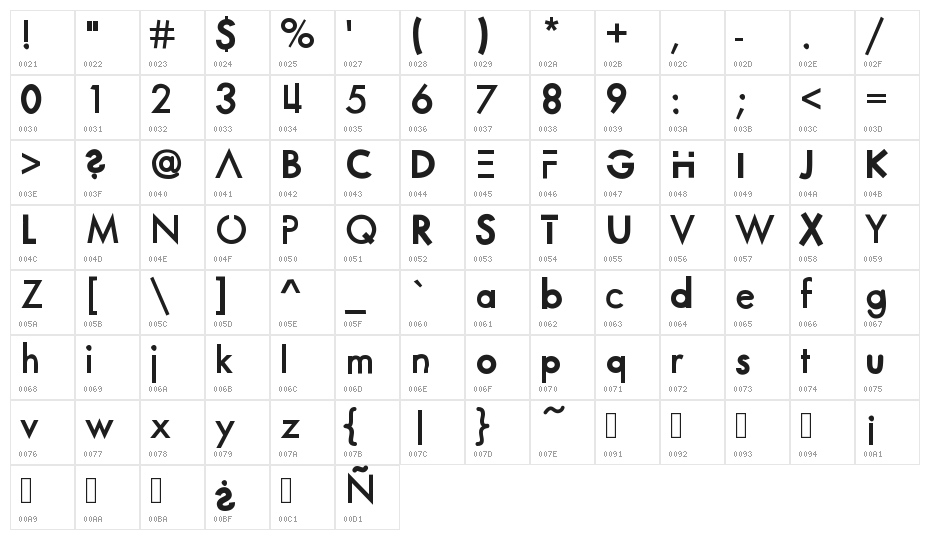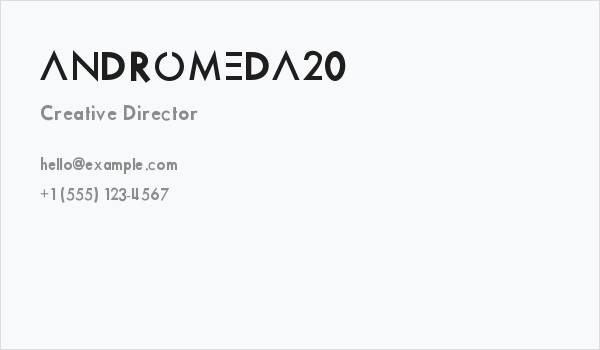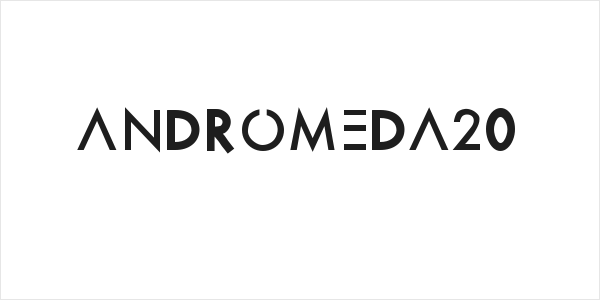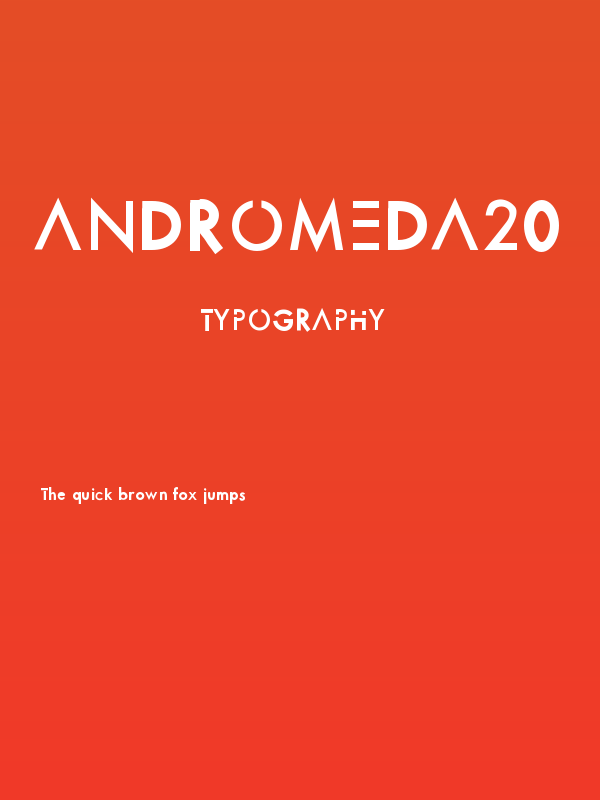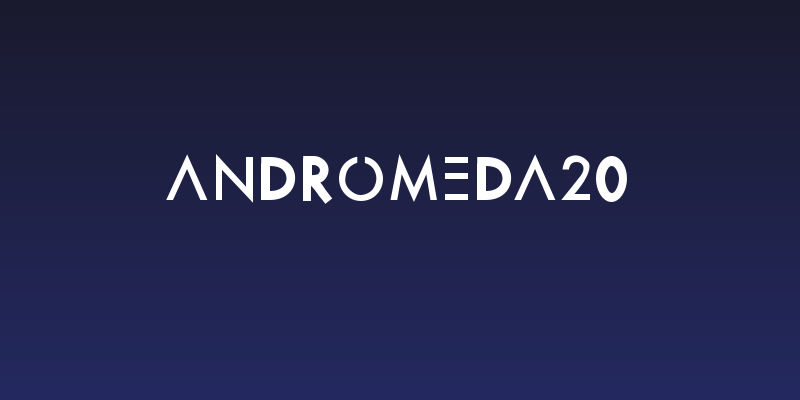
ANDROMEDA20 Font
This font features a bold and geometric style with clean lines and a modern aesthetic. The uppercase letters are distinct with sharp angles and a uniform stroke width, creating a strong visual impact. The lowercase letters maintain a consistent style, offering a harmonious balance between the characters. Numbers are clear and legible, with a similar geometric influence. Special characters are designed to complement the overall style, ensuring versatility across various applications. The font's design is both contemporary and timeless, making it suitable for a wide range of creative projects.
Proposed ProjectsIdeal for branding, advertising, posters, and digital media where a strong, modern look is desired.